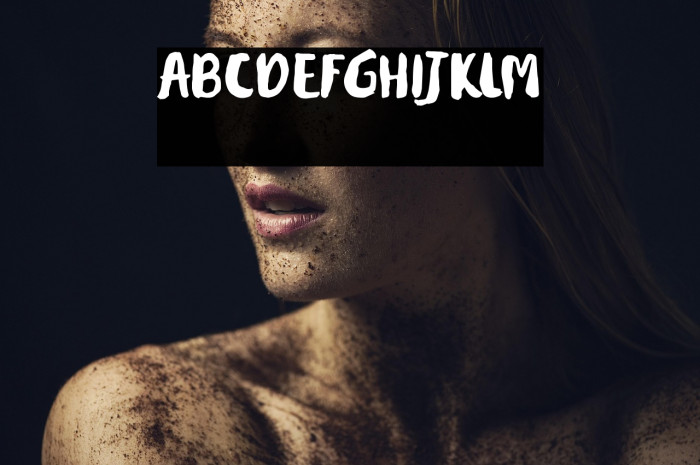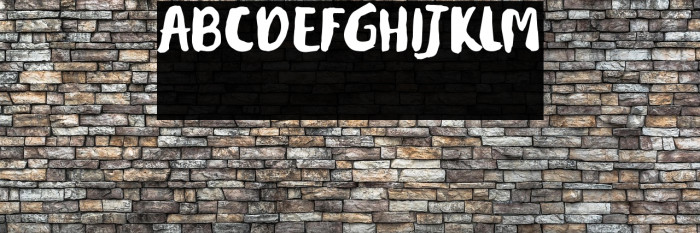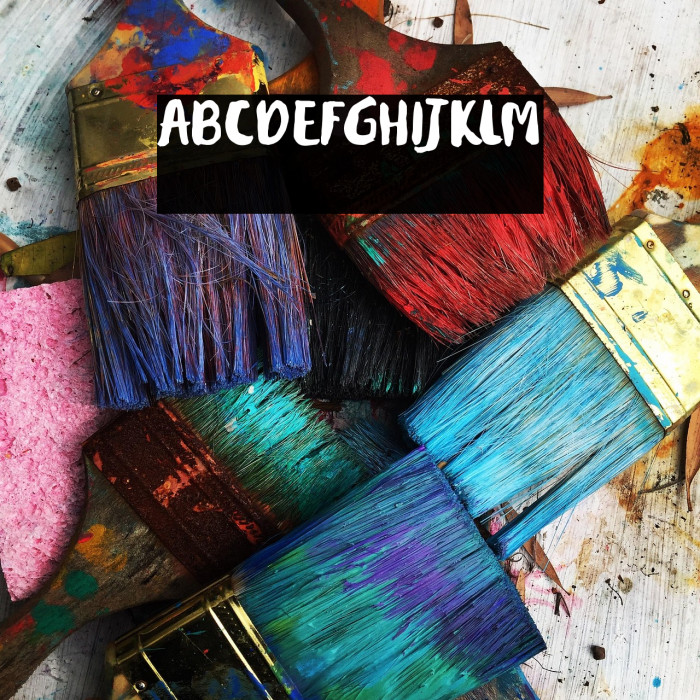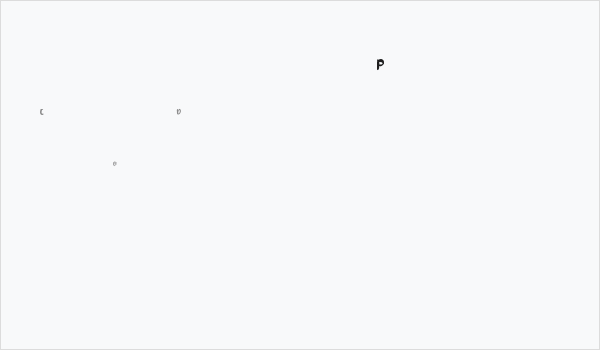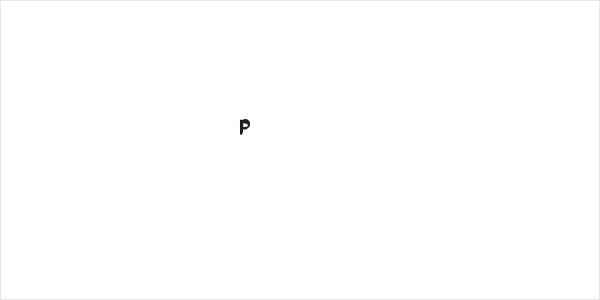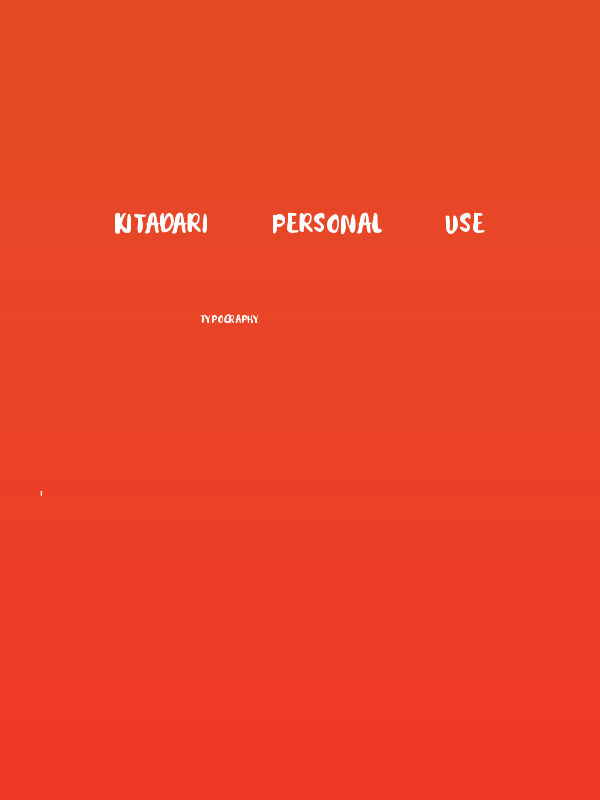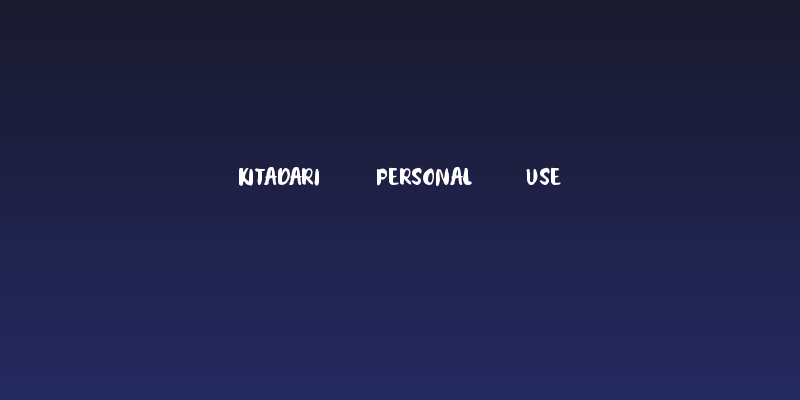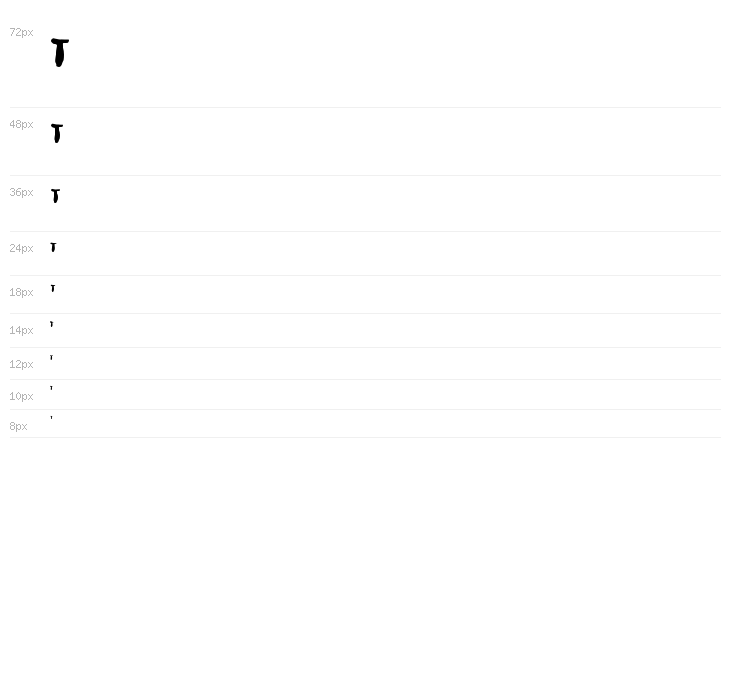
kitadari_Personal_use Font
kitadari_Personal_use Description
This font features a bold and playful design, characterized by its thick, rounded strokes and slightly irregular shapes. The letters have a hand-drawn appearance, giving them a casual and friendly vibe. The uppercase and lowercase letters maintain a consistent style, with a noticeable weight that makes them stand out. The overall look is informal yet impactful, suitable for creative and fun projects. The font's unique style adds personality and charm, making it ideal for designs that require a touch of whimsy and individuality.
| Overall Style | Playful, Casual |
| Proposed Projects | Ideal for children's books, playful branding, greeting cards, and creative posters. |